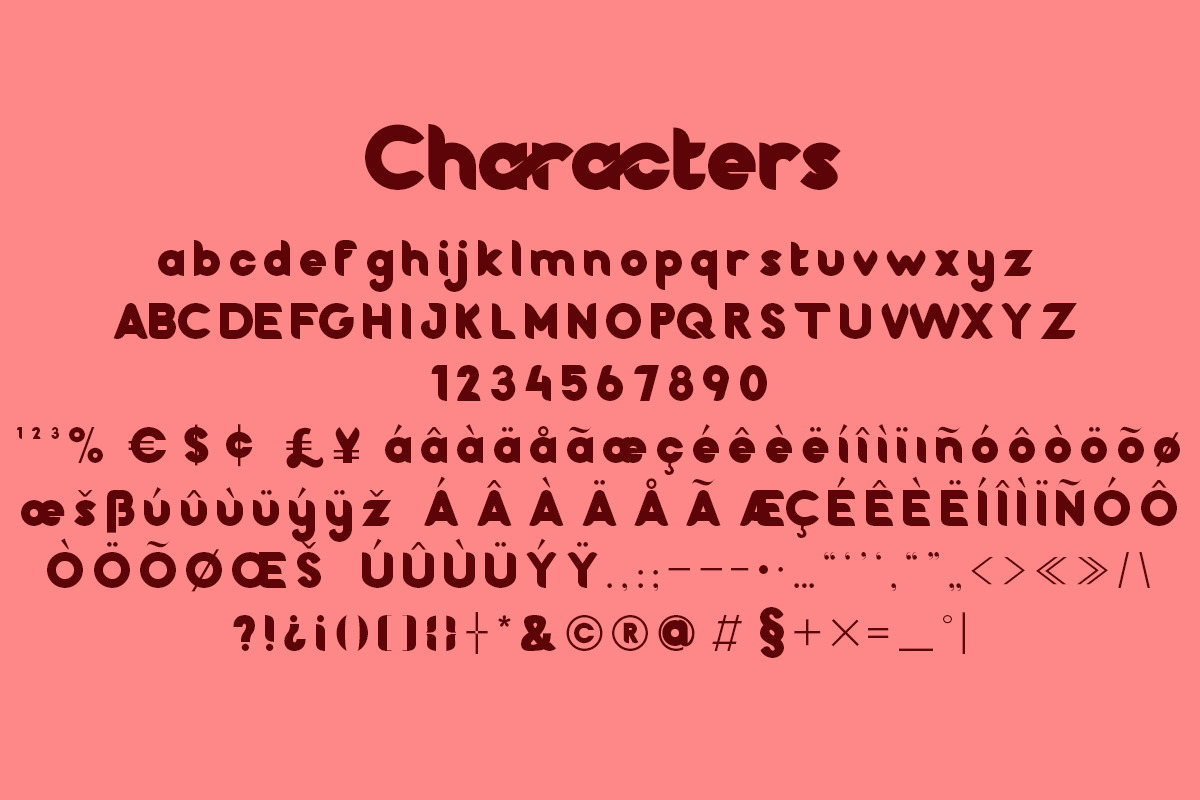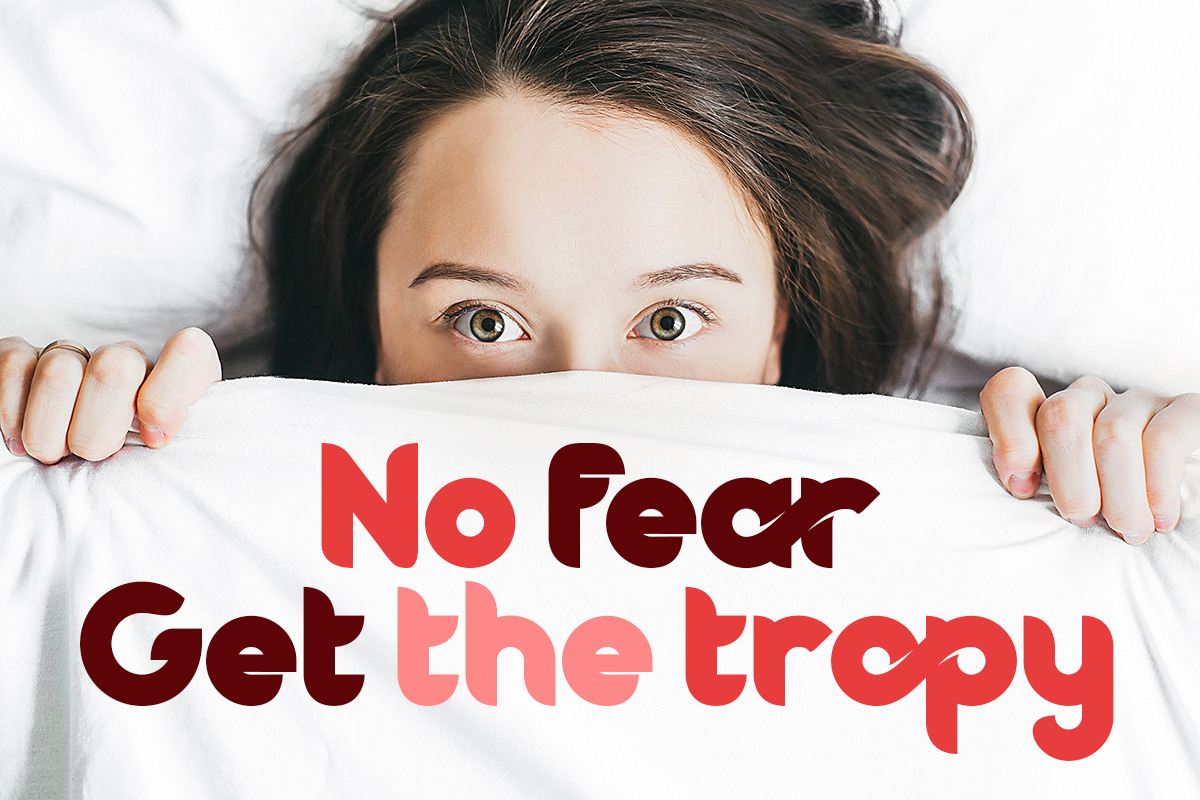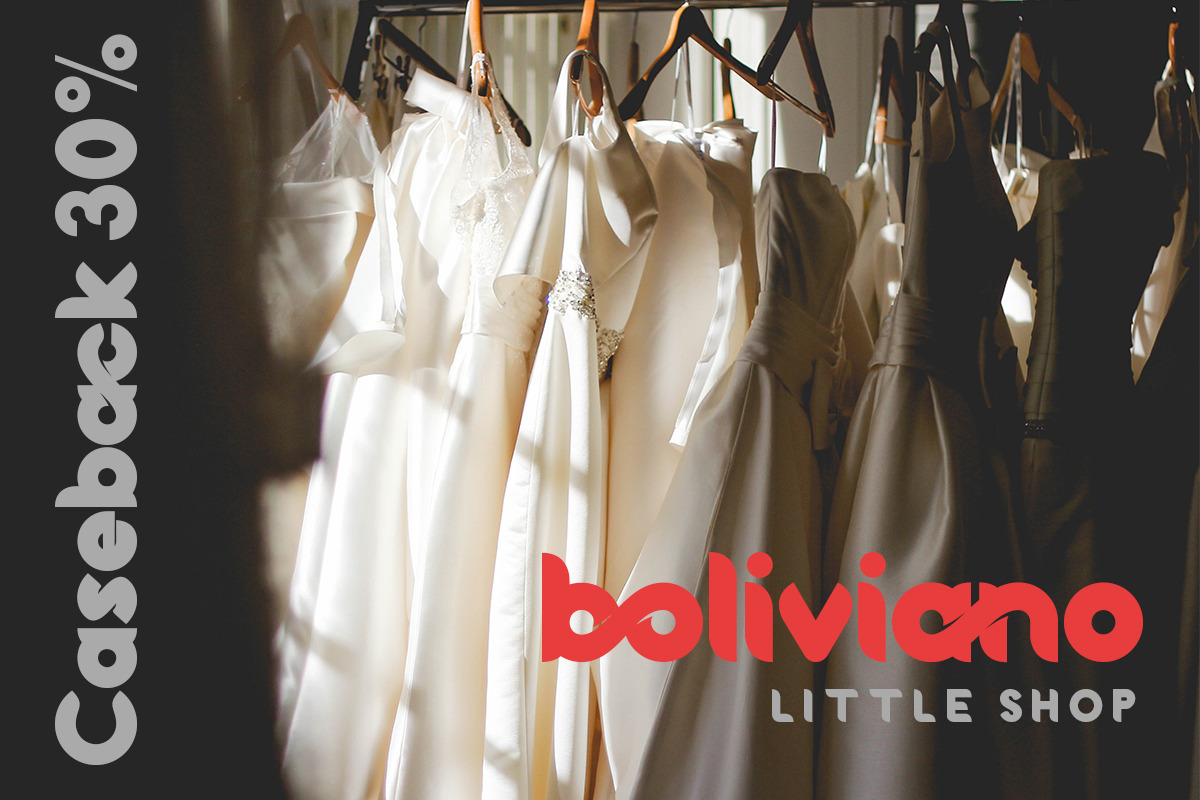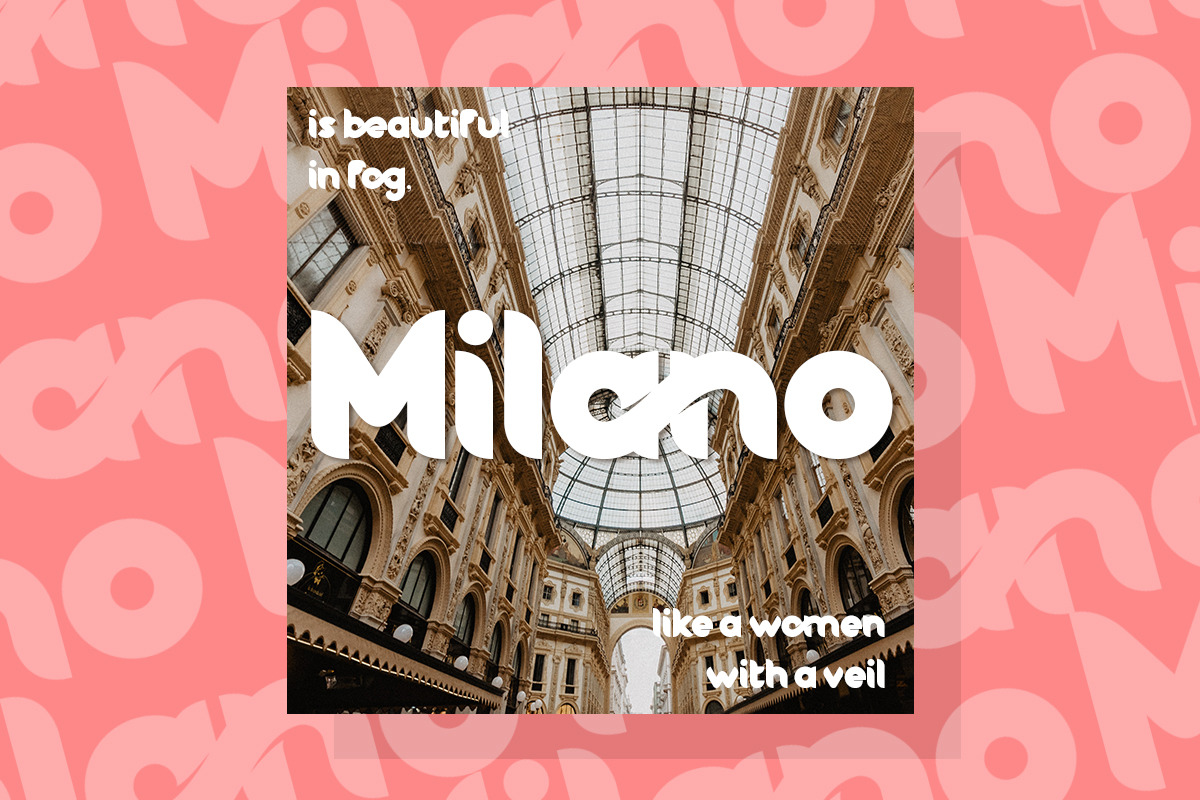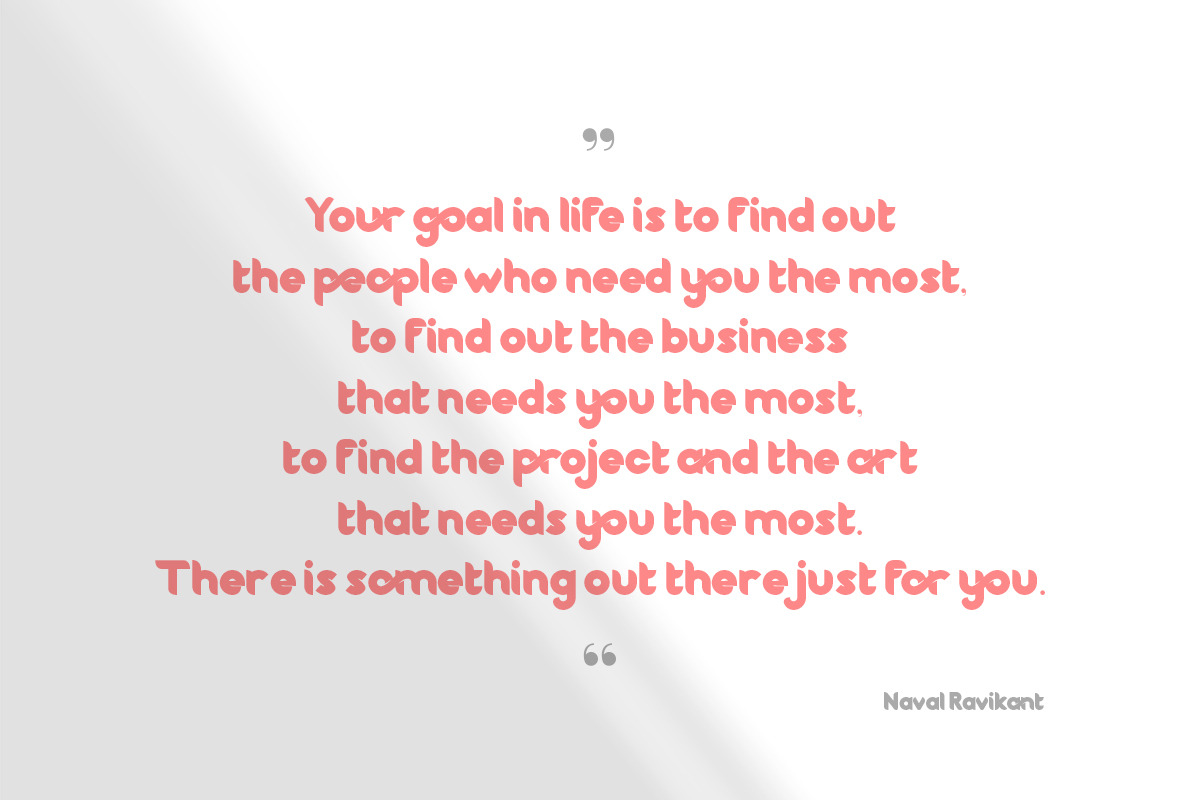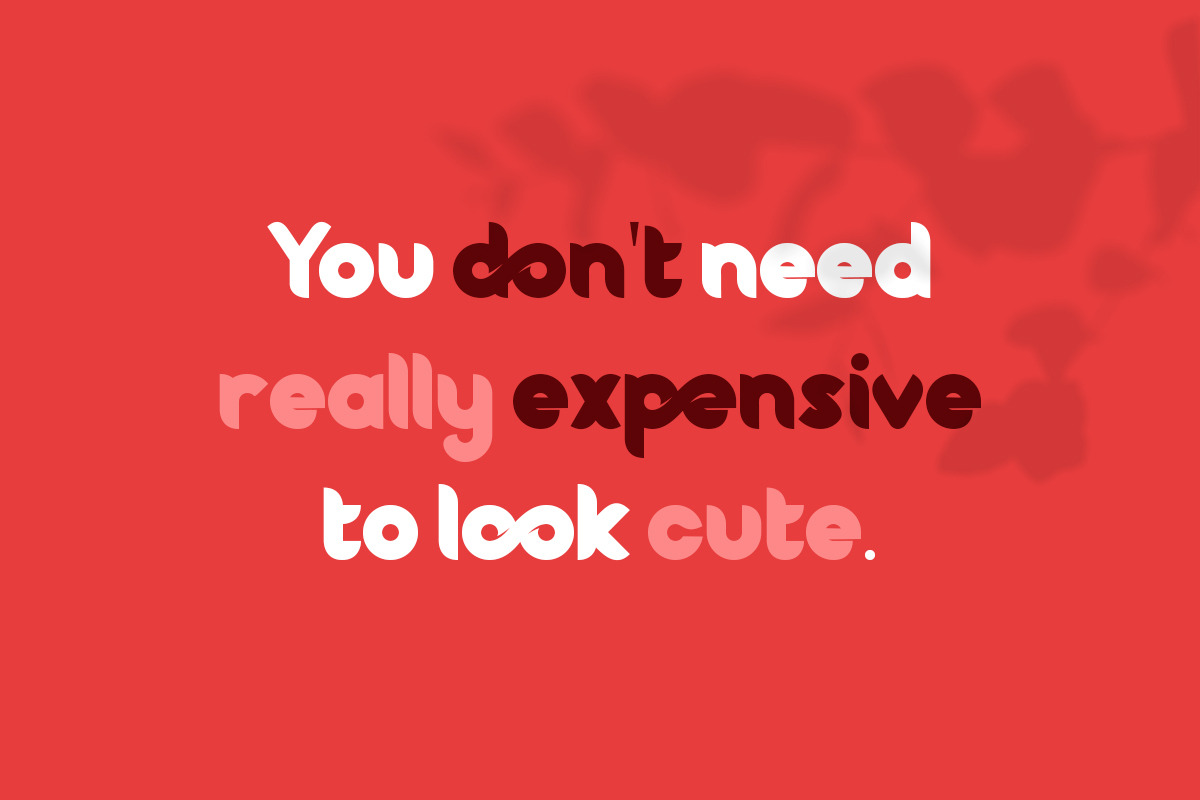
Mood Font
Mood is a Elegant Sans Serif font, perfect for logo design, branding, clothing design, posters, wedding invitations and so much more! Include 100+ ligature.
Mood Font by MuntabArt fits naturally into Branding, posters, packaging, typography.